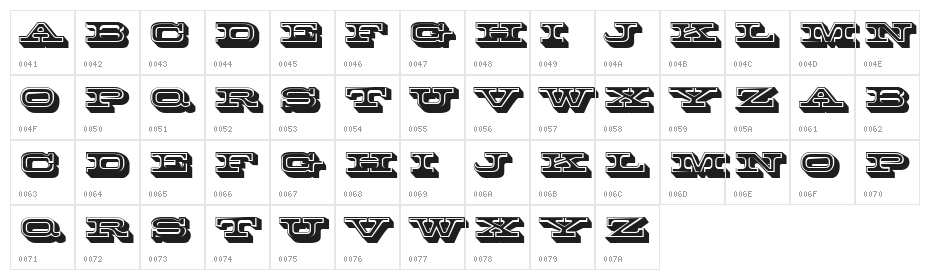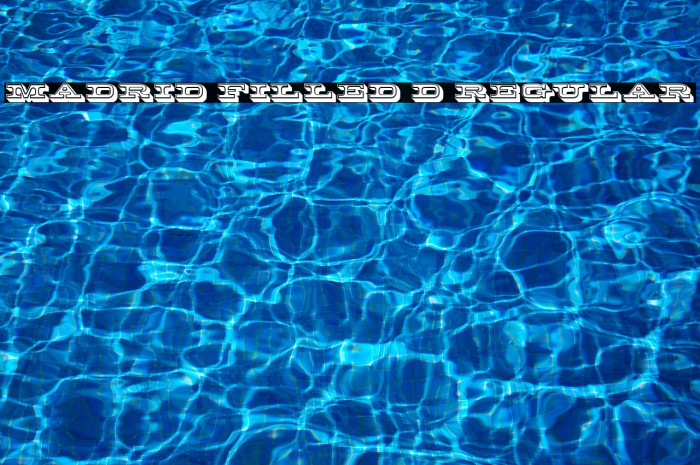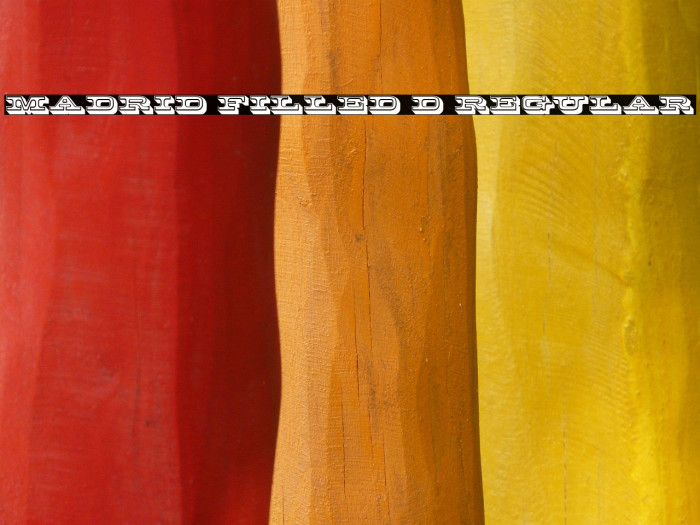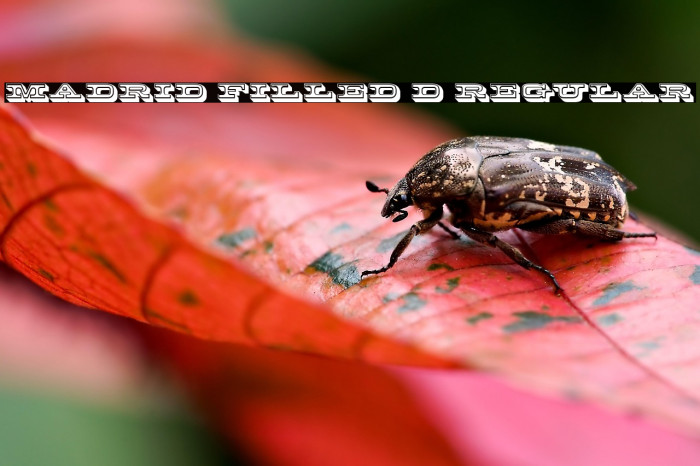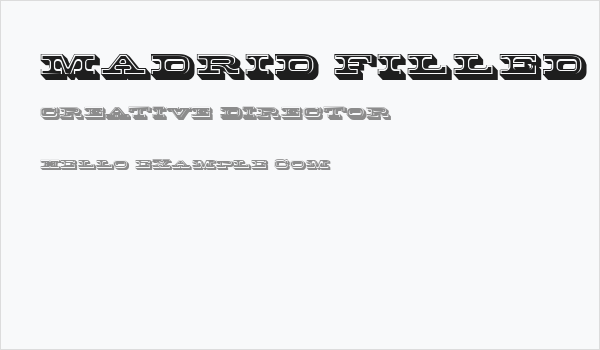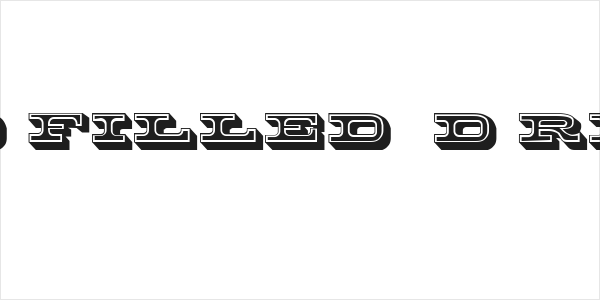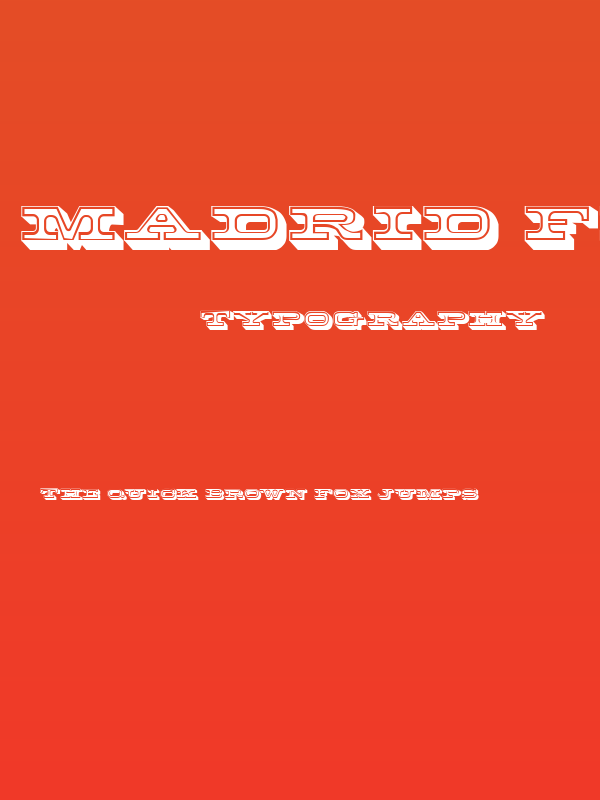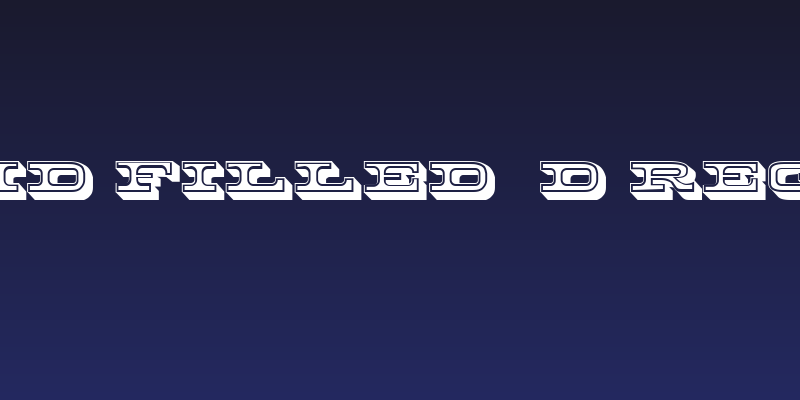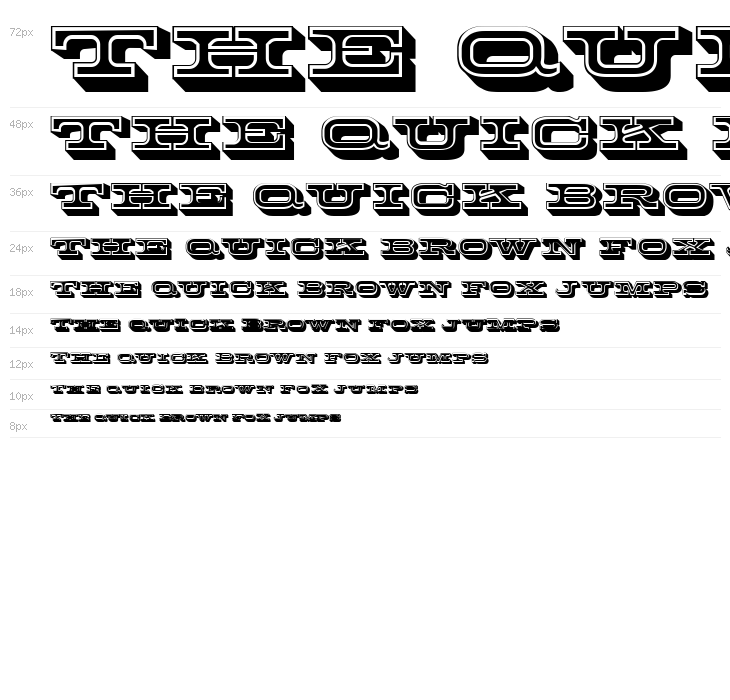
Madrid Filled 3D Regular Font
Madrid Filled 3D Regular Description
This font features a bold and striking 3D effect, with each character having a filled interior and a shadow that gives a sense of depth and dimension. The uppercase letters are prominently displayed, showcasing a strong and impactful presence. The design is highly decorative, making it ideal for attention-grabbing headlines or titles. The characters are well-defined with a consistent thickness, and the shadow effect adds a layer of complexity and visual interest. This font is perfect for projects that require a bold statement and a modern aesthetic.
| Proposed Projects | Ideal for posters, logos, headlines, and any design needing a bold, eye-catching typeface. |